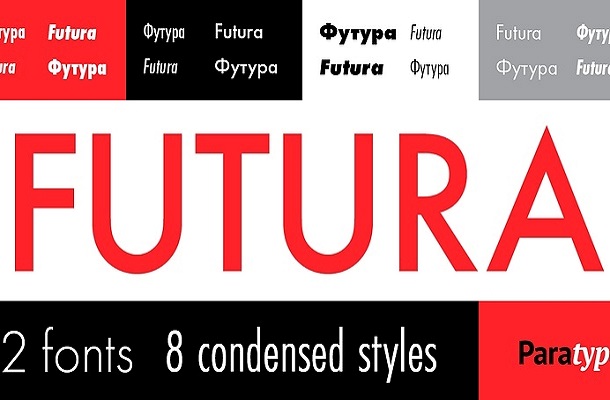
Futura PT Font Family
Futura was then created by Paul Renner for the Bauer company approximately in 1927 for the Bauer Foundry foundry. Evolved from geometric shapes, Futura is a typeface of the sans serif family that became typeface choice for screen and text setting.
ParaType (ParaGraph) was developed in 1995 by Vladimir Yefimov from Russia; additional styles were created in 2007 as Isabella Chaeva’s master thesis and made consistent with all members of the ParaType family. Moreover, some of these earlier varieties had been partially updated to fit all family members’ models better.
This time Futura returns! Futura is a style of a uniform typeface that is provided in seven different weights, and has oblique versions as well as in eight condensed faces that are perfectly in harmony in terms of letter forms, metrics, and weights when used together with the rest.